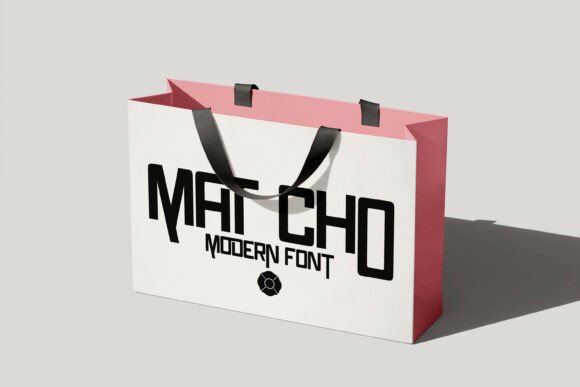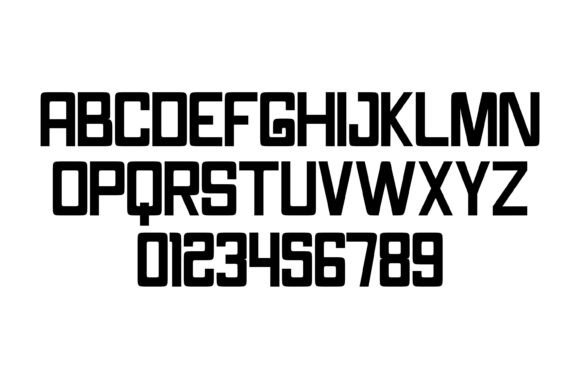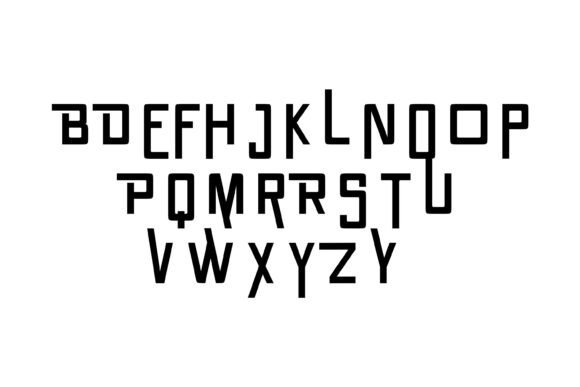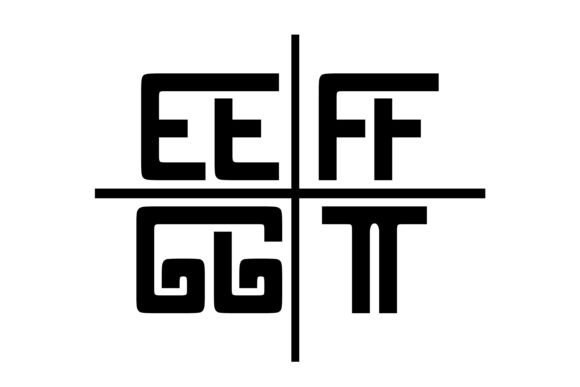
Introduction to Mat Cho Font
As designers, we’ve all been there – staring at a blank canvas, desperately searching for the perfect font to bring our creative project to life. The struggle is real, but what if I told you there’s a game-changing font that’s about to revolutionize your design workflow? Say hello to the stunning Mat Cho Font, a bold and stylish condensed sans serif font that’s taking the design world by storm.
With its unique blend of retro aesthetics and modern minimalism, Mat Cho Font is the perfect design resource for any creative project. Its strict proportions, clean lines, and striking curves give your designs a bold personality that’s sure to attract attention. Whether you’re working on a poster, logo design, or editorial title, Mat Cho Font is the perfect companion to help you create high-quality, visually striking content.
Key Features of Mat Cho Font
- High-quality design resource suitable for creative projects, offering a unique and modern aesthetic.
- Perfect for designers looking for a modern and stylish font to elevate their creative project, be it a logo, branding, or typography-based artwork.
Honest Review: Mat Cho Font
I recently stumbled upon the Mat Cho Font while searching for a unique design resource for a creative project. I was immediately drawn to its modern and sleek aesthetic.
- High-quality typography: The font has a crisp and clean appearance, making it perfect for titles and headings.
- Limited character set: The font’s character set is somewhat limited, which may not be suitable for complex texts or languages.
- No bold or italic variants: While the font’s regular style is great, the lack of bold or italic variants may limit its versatility.
Overall, I’m impressed with the Mat Cho Font’s modern design and high-quality typography. While it has some limitations, it’s a great addition to any designer’s toolkit. I’d definitely recommend it for creative projects that require a unique and stylish touch.
Tips for Getting the Most Out of Mat Cho Font
The Mat Cho Font is perfect for various creative projects, including:
- Typography
- Branding